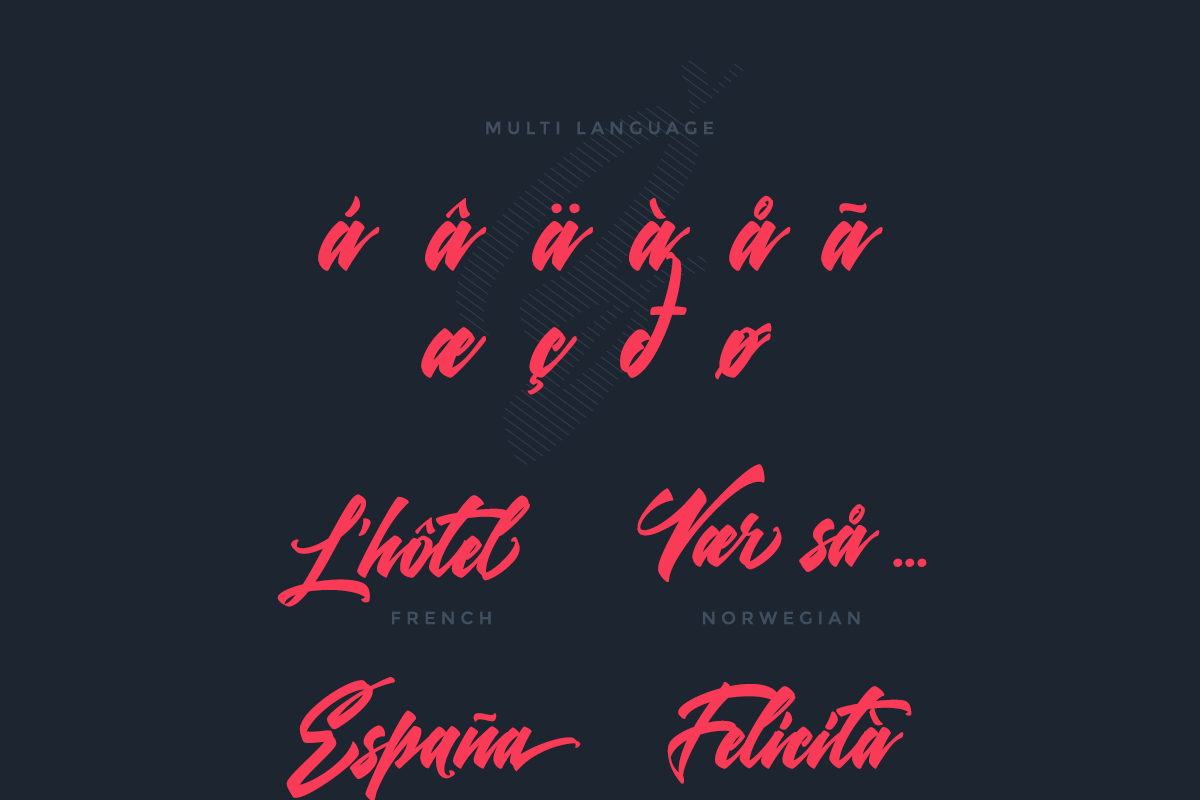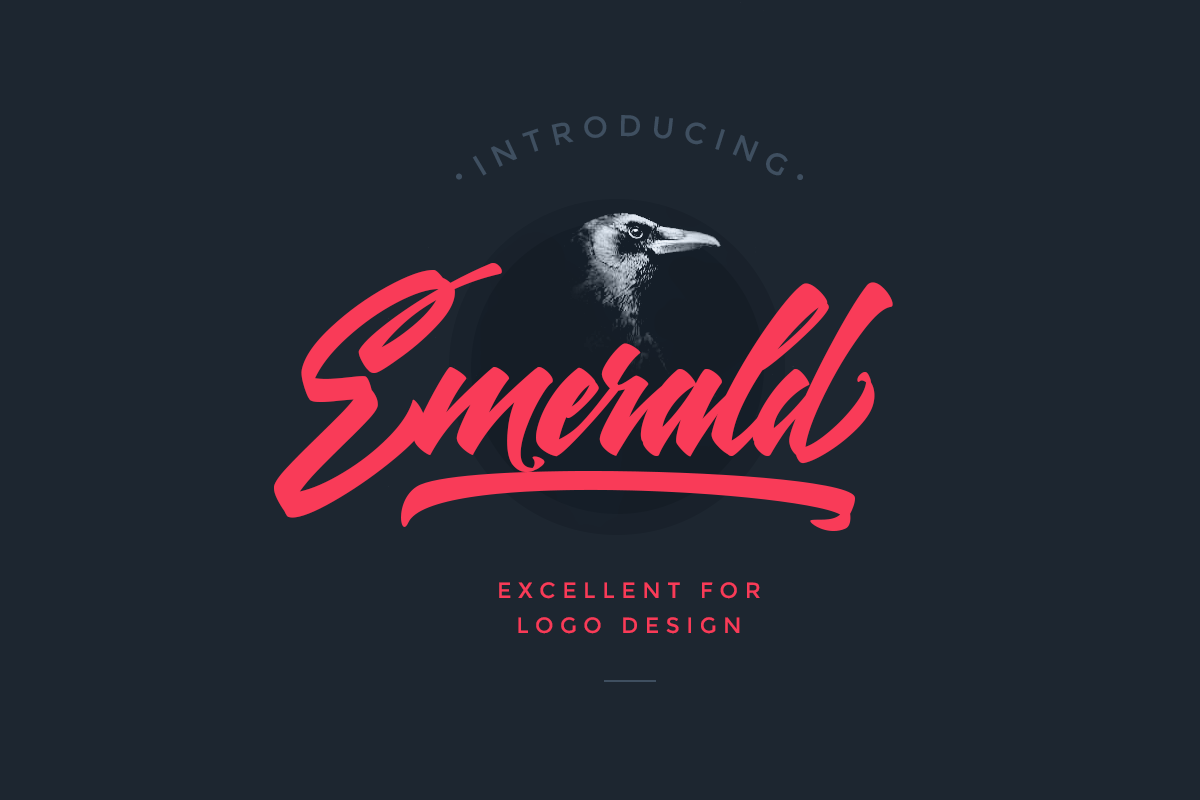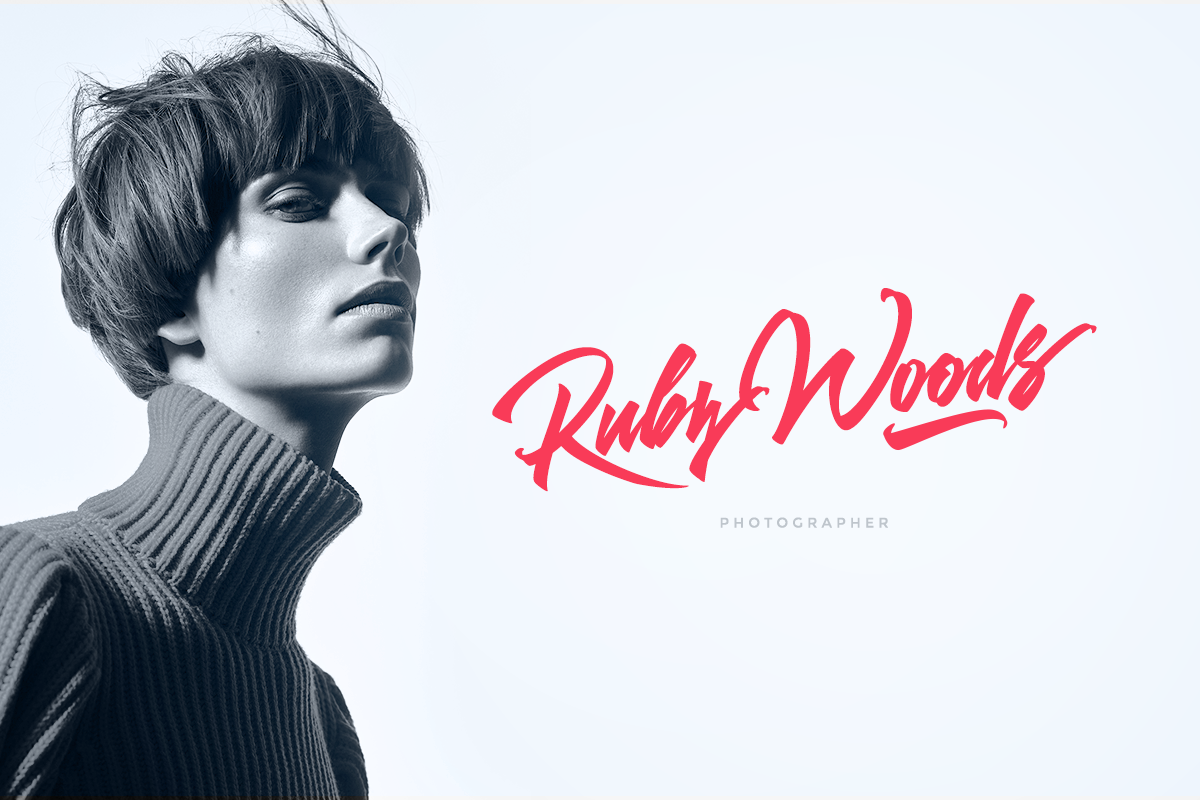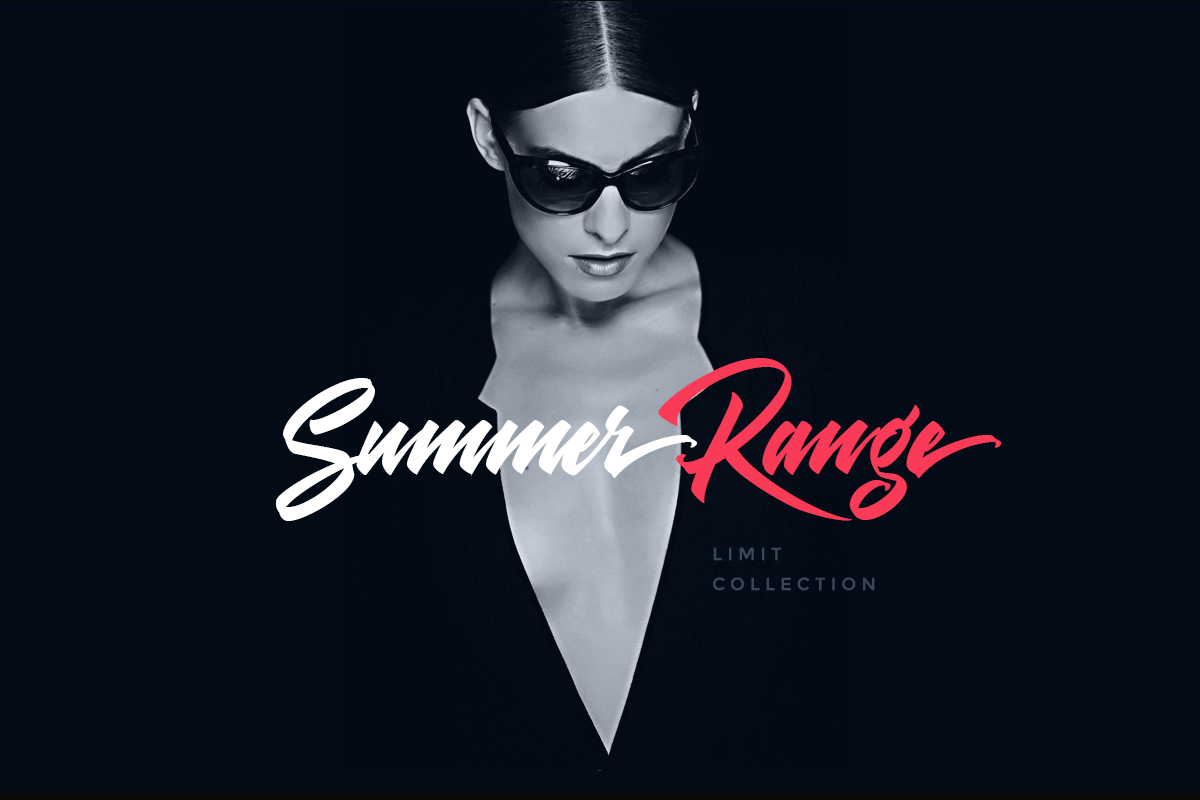
Emerald Script Font
Emerald is the font pack. The Normal font combines with the alternate character font to make each word unique. Then add the Splatters font as your tagline and — the ideal logo!
- Swashes (.ttf & .otf) Perfectly combine with Emerald to create cool - typography or logo design.